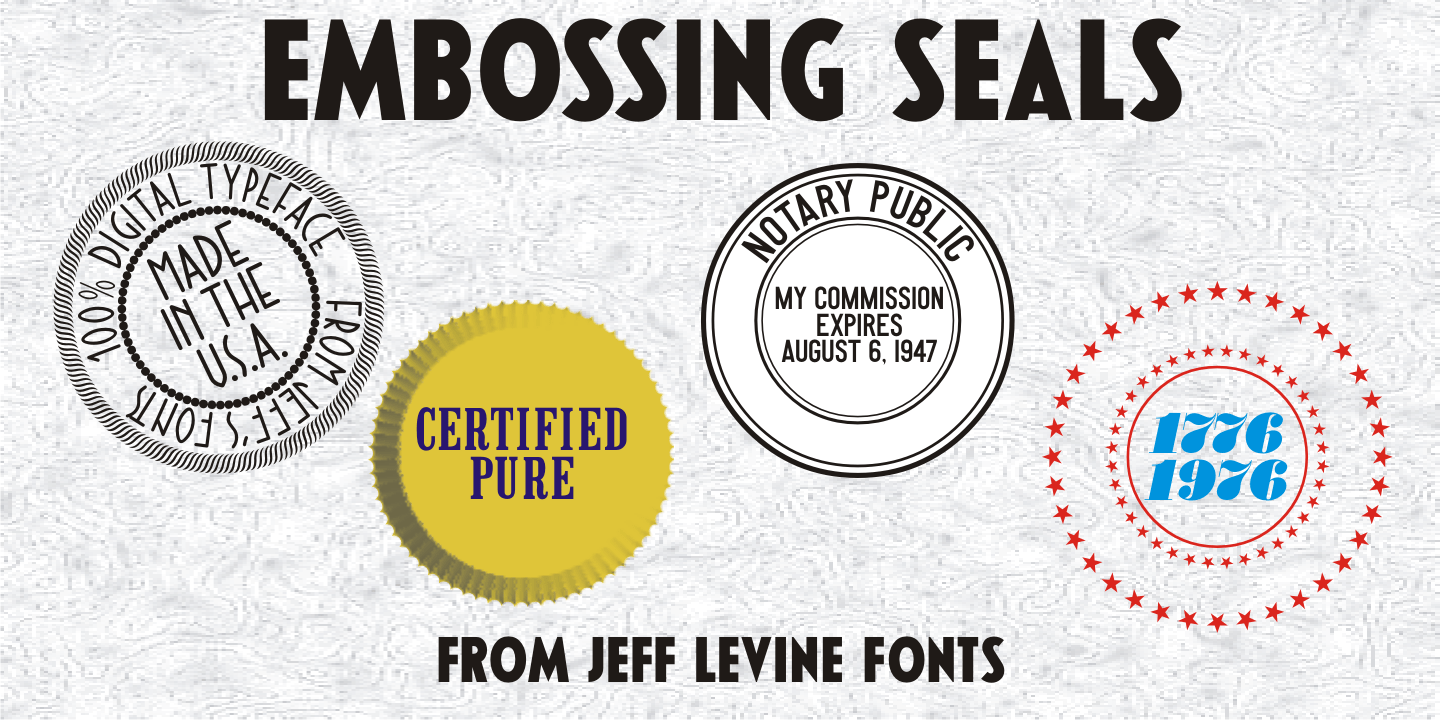
Embossing Seals
Twenty-Six various styles of document seals comprise Embossing Seals JNL. With a little imagination any plain document can take on an 'official' look by adding text and a few special effects to the finished image.
Embossing Seals JNL Regular by Jeff Levine Fonts